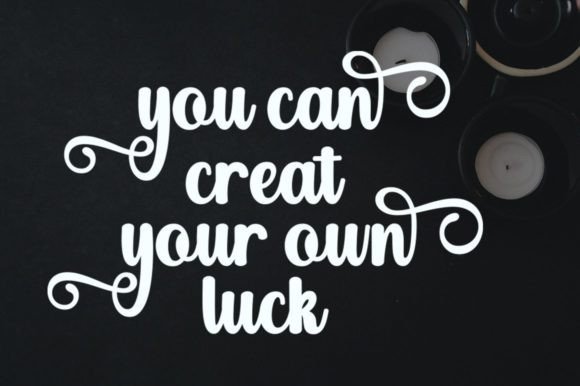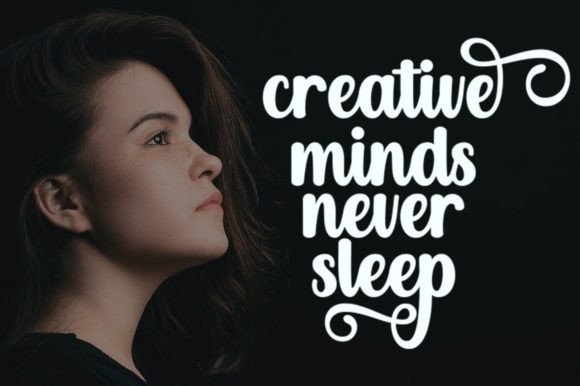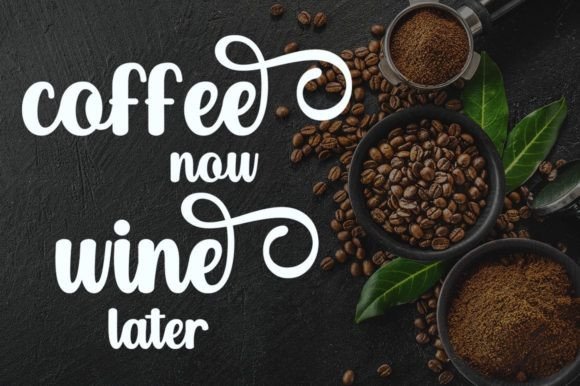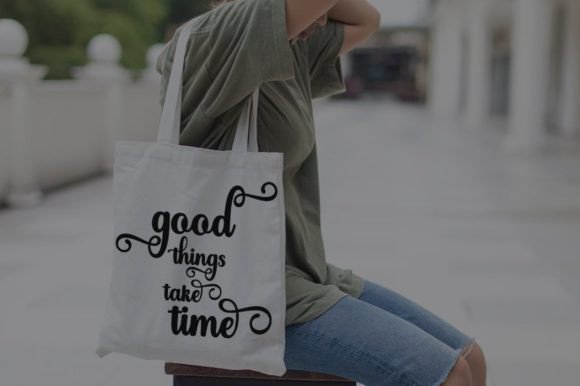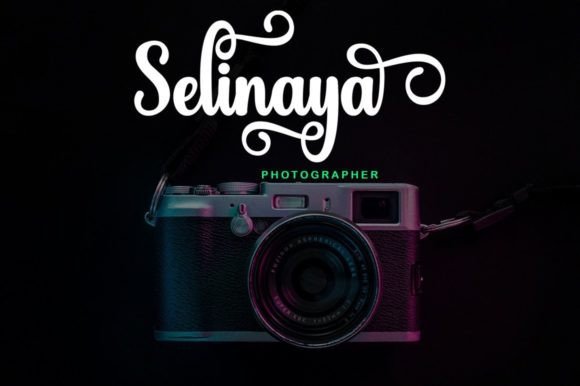
Heligan Script Font
About Heligan Script Font
**Heligan Script** is a retro-styled and sophisticated handwritten font that effortlessly conveys messages with confidence, authenticity, and charm. Its timeless appeal makes it an excellent choice for a variety of creative projects, from cards and branding materials to labels and beyond. With its retro-inspired design, **Heligan Script** brings a touch of nostalgia and elegance to any composition.
The font’s retro aesthetic adds a sense of classic style and refinement to the text. Whether used for vintage-themed projects or contemporary designs that need a hint of old-world charm, **Heligan Script** delivers a sense of authenticity and character. Its handwritten quality ensures that the text feels genuine and personal, creating a connection with the audience.
One of the notable features of **Heligan Script** is its PUA encoding, which allows easy access to all glyphs and swashes. This feature provides designers with the freedom to customize their text, incorporating unique and stylish elements into their designs. With its accessible glyphs and swashes, **Heligan Script** empowers designers to create customized and eye-catching compositions tailored to their specific needs.
Embrace the retro-inspired elegance of **Heligan Script** and explore its potential in your creative endeavors. Its sophisticated design, coupled with its authenticity and charm, elevates your projects to new heights. Whether you’re designing cards, branding materials, or labels, **Heligan Script** adds a touch of timeless style, making your creations stand out with confidence and sophistication.